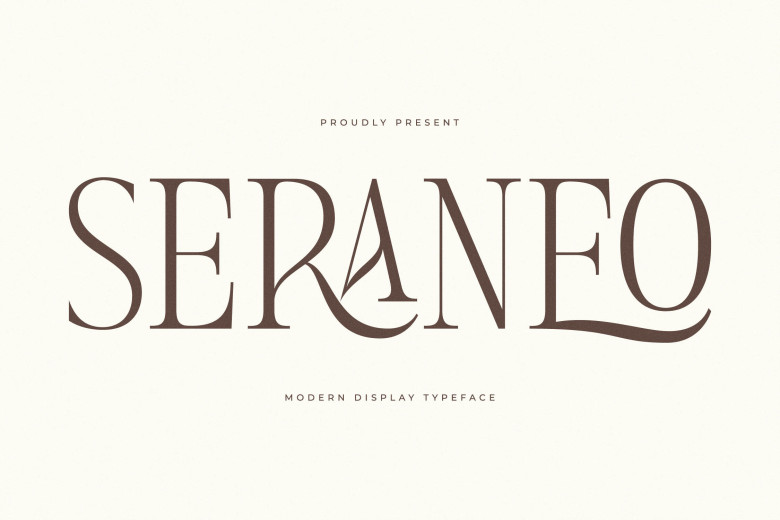
Seraneo Font
Seraneo from Letterena is an eye-catching, modern show serif font suitable for virtually every project imaginable, such as logos, branding projects design, homeware, packaging design for products like mugs or posters, quotes, clothing, bags, books, name cards, greeting cards, invitation cards, labels, photographs, watermarks, special events as well as any luxurious serif style projects with luxury appeal.
Seraneo Serif Font